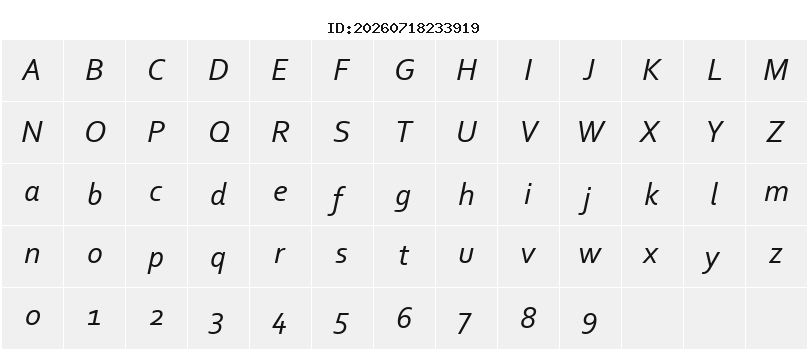
• Font Name: Corbel
• Full Font Name: Corbel Italic
• Designer: Jeremy Tankard
• Manufacturer: Microsoft Corporation
• Description: Corbel is designed to give an uncluttered and clean appearance on screen. The letter forms are open with soft, flowing curves. It is legible, clear and functional at small sizes. At larger sizes the detailing and style of the shapes is more apparent resulting in a modern sans serif type with a wide range of possible uses.
Corbel.ttf is a modern, elegant sans-serif font designed for ultimate readability and visual harmony. Perfect for branding, headlines, web design, and print materials.